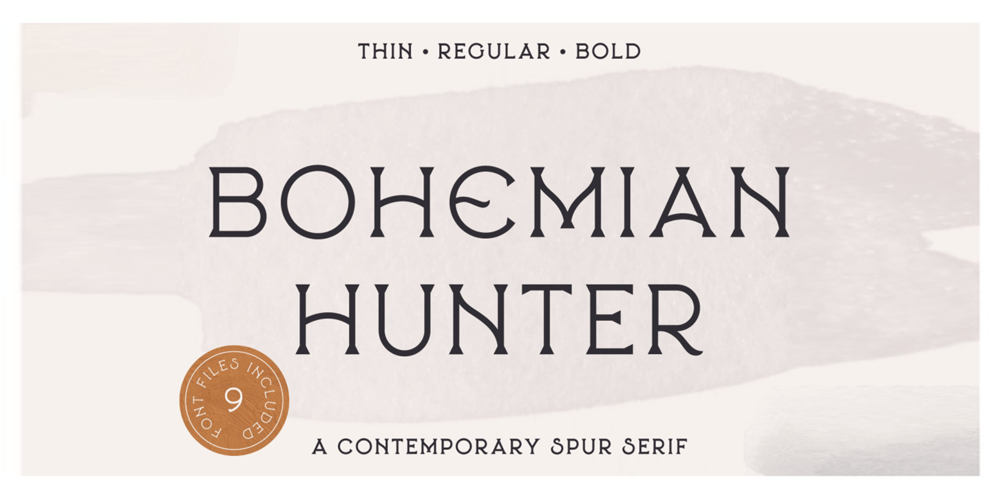
Bohemian Hunter Font Family was designed by Jeremy Vessey and published by Hustle Supply Co. Bohemian Hunter contains 9 styles and family package options. Bohemian Hunter is an All-Caps contemporary display / spur serif typeface. It comes packed with 9 different font files including 3 weights.What’s included? 9 Font Files Light, Regular, Bold Clean, Rough, Stamp Versions Western European Characters Included